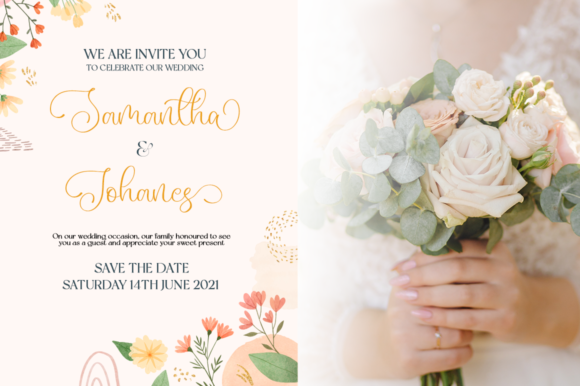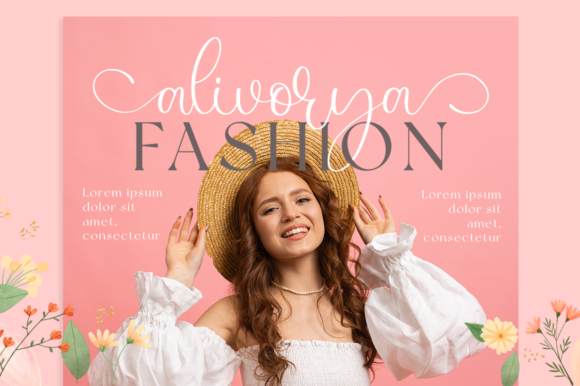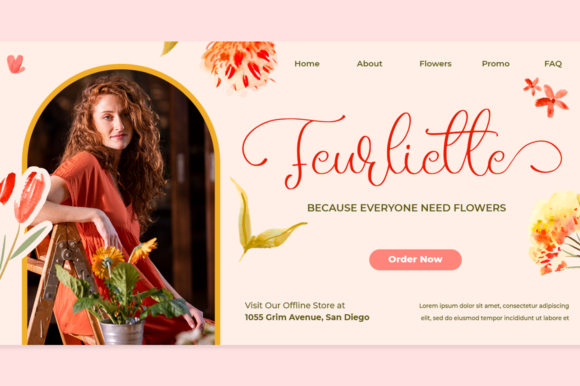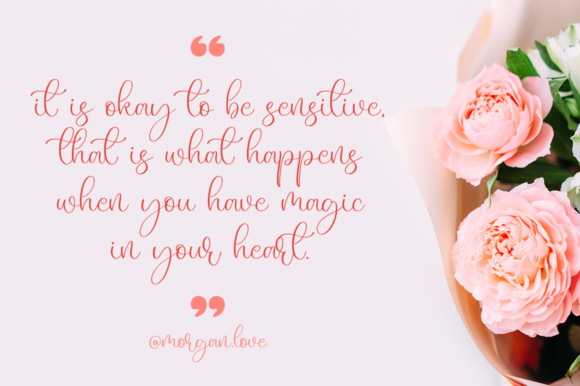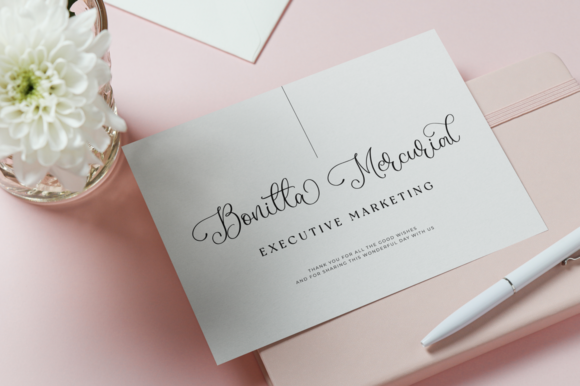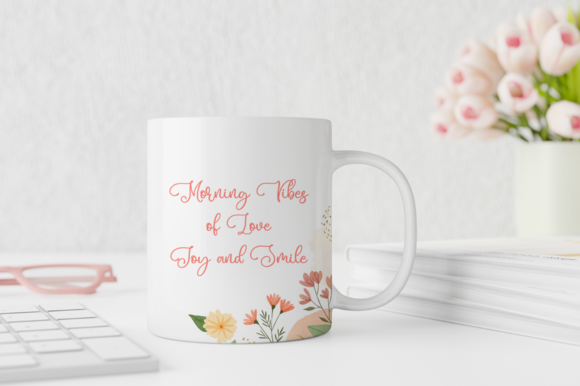
Halsey Font: Elevate Your Designs with Elegance and Modernity
Are you looking for a font that exudes sophistication and style? Look no further than the Halsey font, a beautiful script font that is sure to elevate your creative projects to new heights. With its refined style and modern aesthetic, Halsey is the perfect choice for designers and crafters who want to add a touch of elegance to their work.
What Makes Halsey Font So Special?
Halsey is a stunning script font that boasts a range of features that make it stand out from the crowd. Its refined style is characterized by beautiful letterforms, flowing connections, and a sense of fluidity that gives it a modern and dynamic feel. Whether you’re looking to create a logo, branding materials, invitations, stationery, wedding designs, or social media posts, Halsey is the perfect choice.
One of the key benefits of the Halsey font is that it is PUA (Private Use Area) encoded. This means that you can access all glyphs and swashes with ease, giving you complete creative control over your designs. With PUA encoding, you can effortlessly navigate the font’s extensive character set, including alternates, ligatures, and swashes, to create truly unique and eye-catching designs.
The versatility of the Halsey font is one of its most appealing features. With its elegant and modern style, you can use it to create a wide range of designs, from:
- Logos and branding materials that make a lasting impression
- Invitations and stationery that exude sophistication and style
- Wedding designs, including wedding invitations, programs, and decorations
- Social media posts that stand out from the crowd
Why Choose Halsey Font?
So why choose the Halsey font for your next design project? Here are just a few reasons:
- Elegant and modern style: Halsey boasts a refined style that is both elegant and modern, making it perfect for designers and crafters who want to create sophisticated designs.
- PUA encoded for easy access: With PUA encoding, you can access all glyphs and swashes with ease, giving you complete creative control over your designs.
- Versatile and flexible: Halsey can be used for a wide range of designs, from logos and branding materials to invitations and social media posts.
- High-quality design: Halsey is a high-quality font that is designed to deliver exceptional results, with beautiful letterforms and a sense of fluidity that gives it a modern and dynamic feel.
Tips for Using Halsey Font
To get the most out of the Halsey font, here are a few tips:
- Experiment with different sizes and styles: Halsey looks great in a range of sizes and styles, so don’t be afraid to experiment and find the perfect combination for your design.
- Pair it with complementary fonts: Halsey pairs beautifully with a range of fonts, so try pairing it with complementary fonts to create a unique and eye-catching design.
- Use it to add a touch of elegance: Halsey is perfect for adding a touch of elegance to your designs, so use it to create sophisticated and stylish designs that impress.